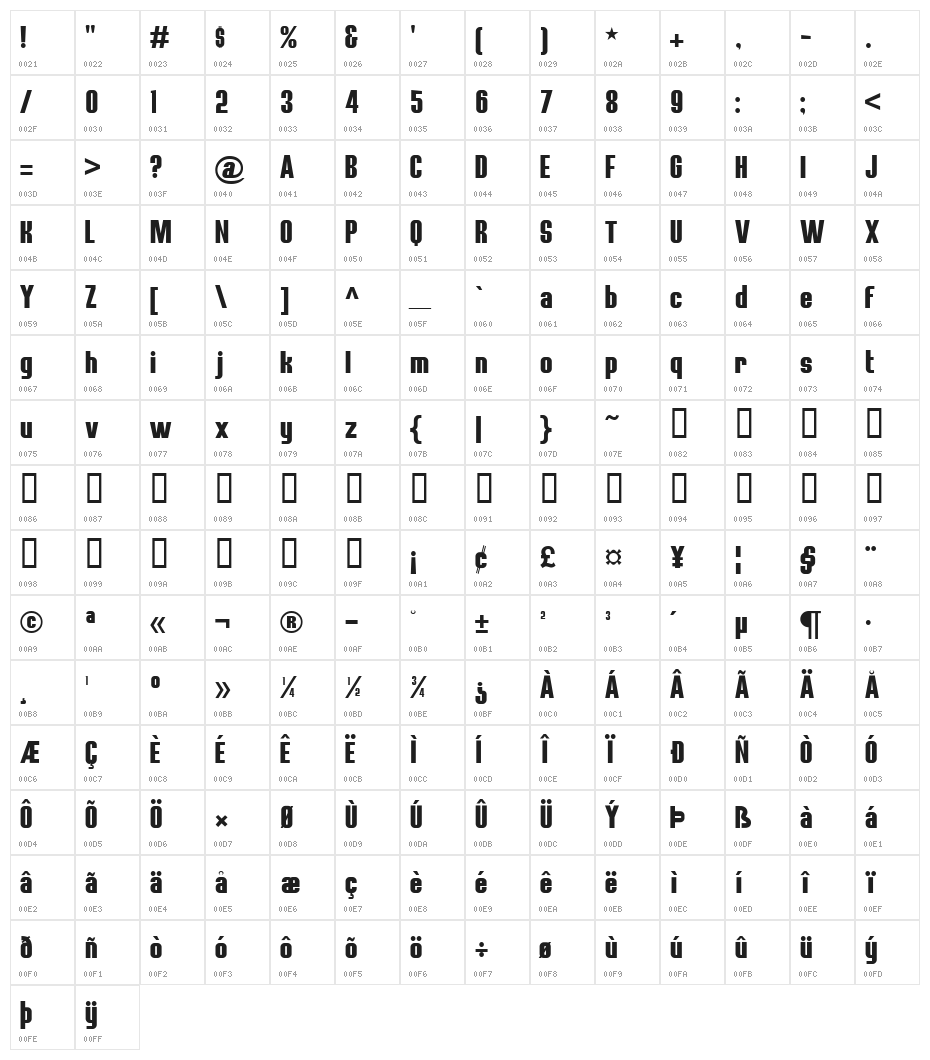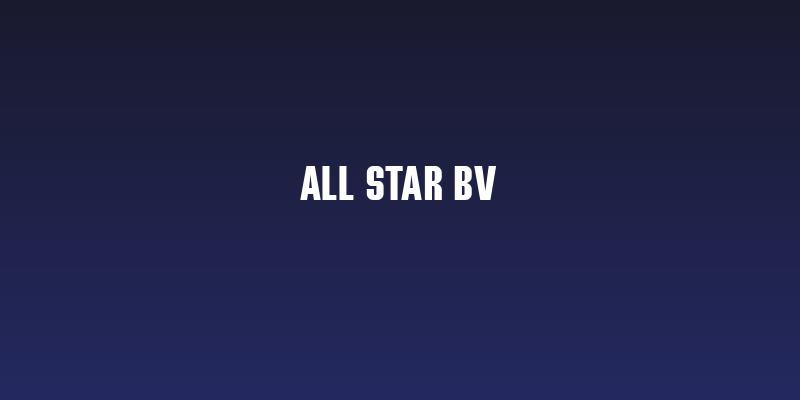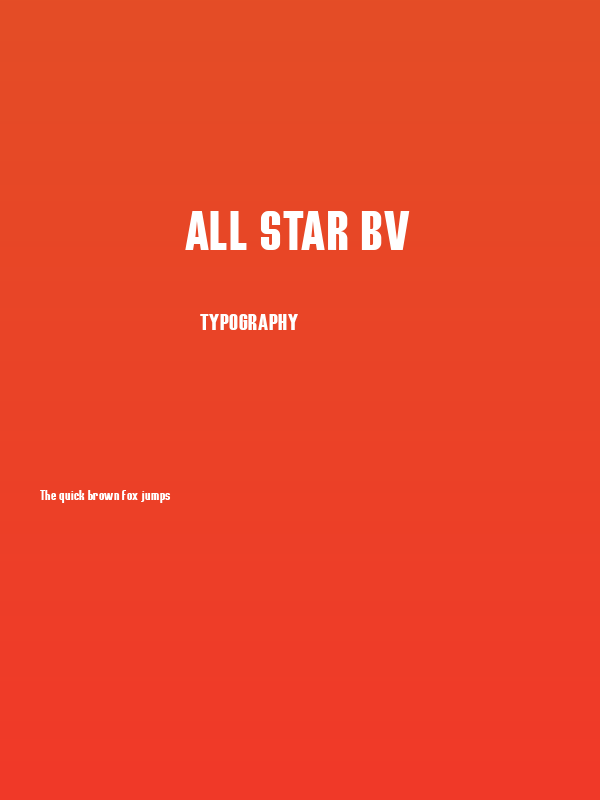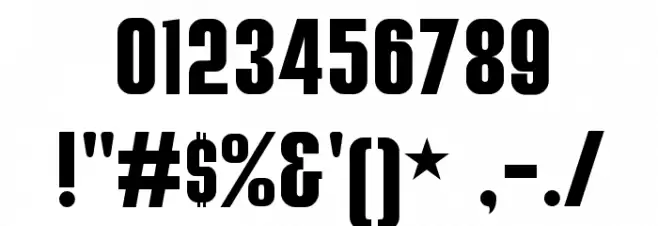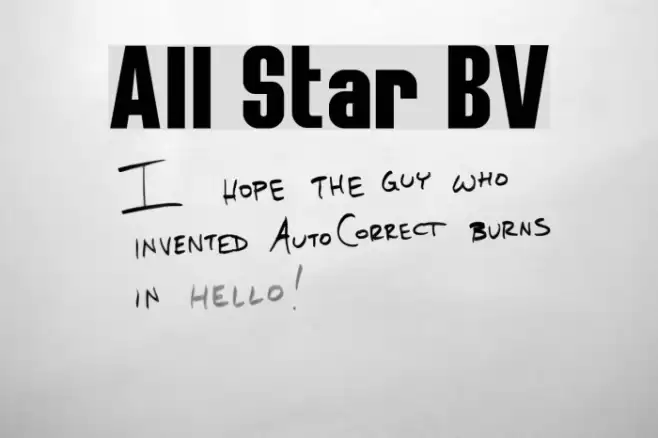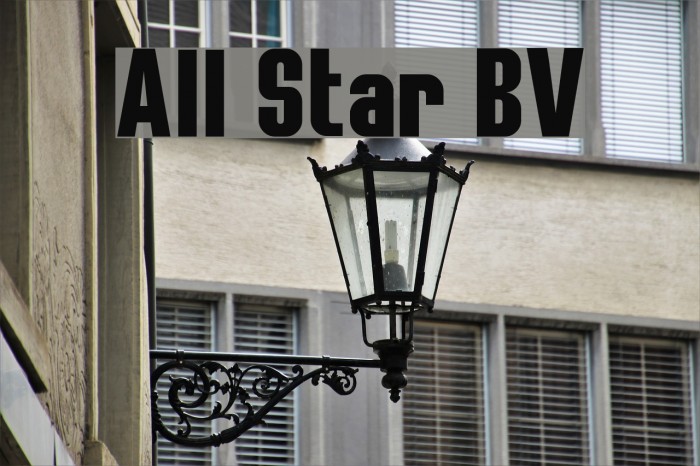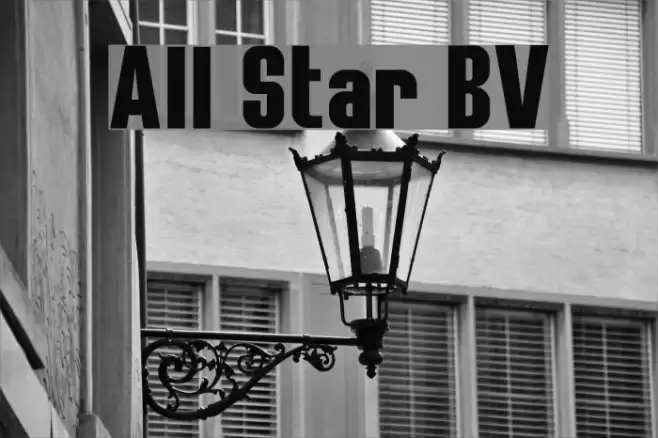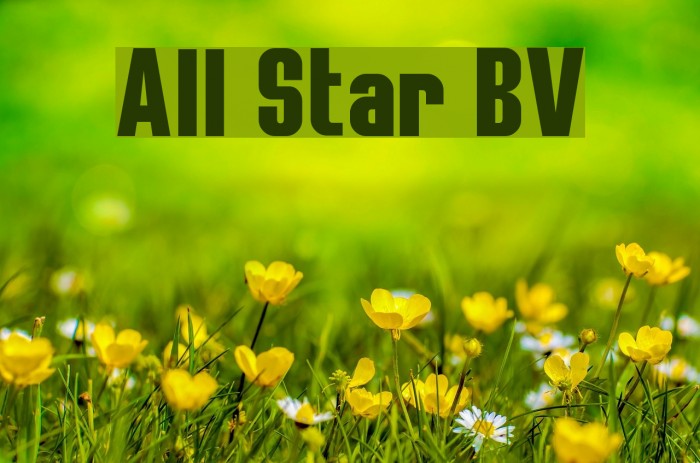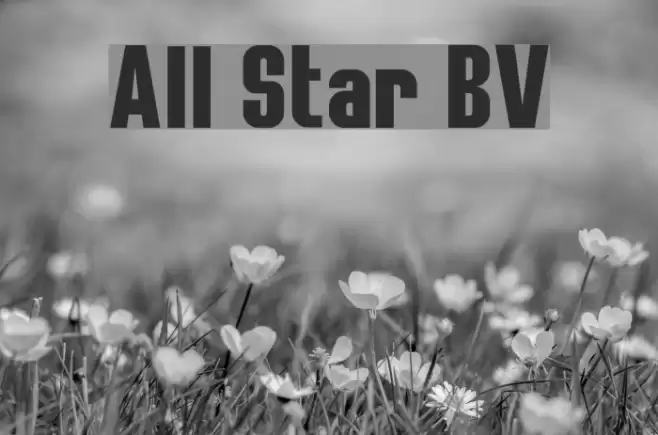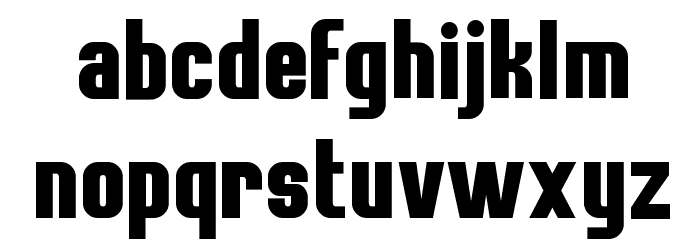
All Star BV Font
All Star BV Description
This font features a bold and impactful design with strong geometric shapes and a robust presence. The uppercase letters are uniform in height, creating a cohesive and powerful look. The lowercase letters maintain the same boldness, with slightly rounded edges that add a touch of softness to the otherwise strong lines. The numbers are equally bold, ensuring they stand out clearly. Special characters are designed with the same attention to detail, maintaining the font's overall aesthetic. The font's thick strokes and consistent weight make it ideal for attention-grabbing headlines and titles.
| Proposed Projects | Ideal for sports branding, posters, headlines, and any project requiring a strong, impactful typeface. |